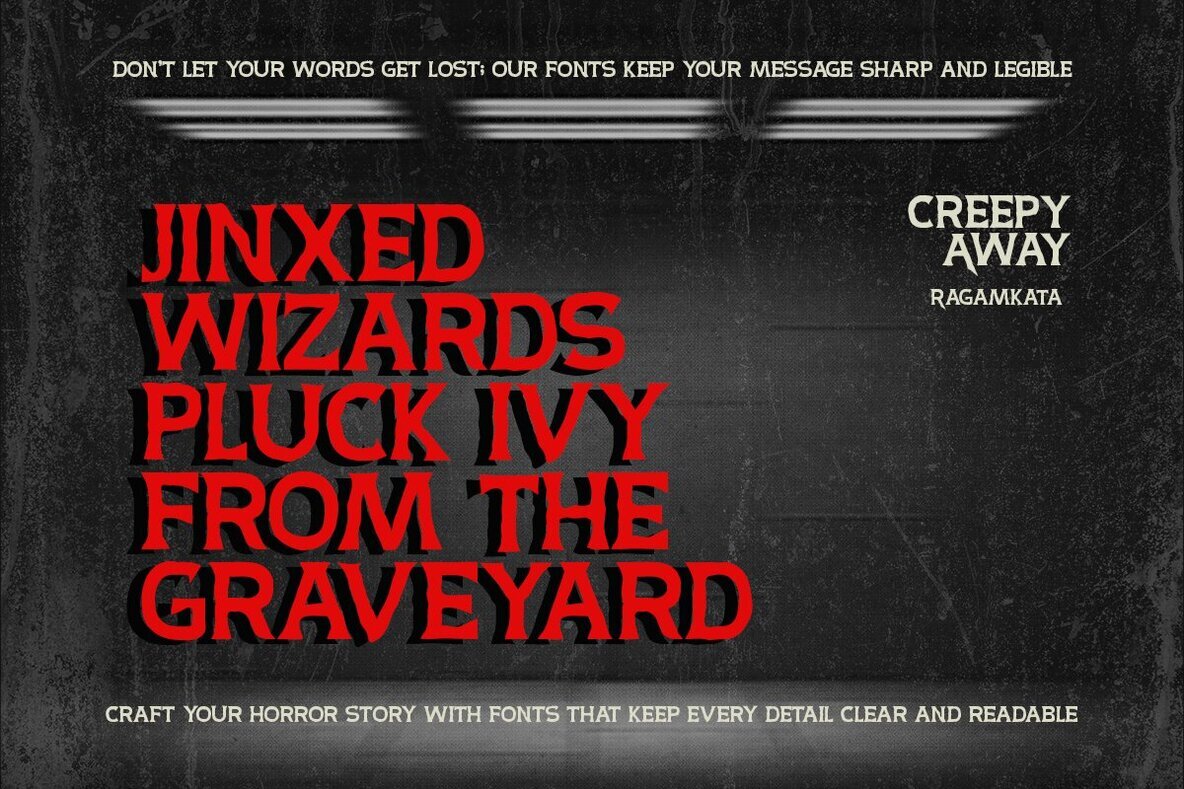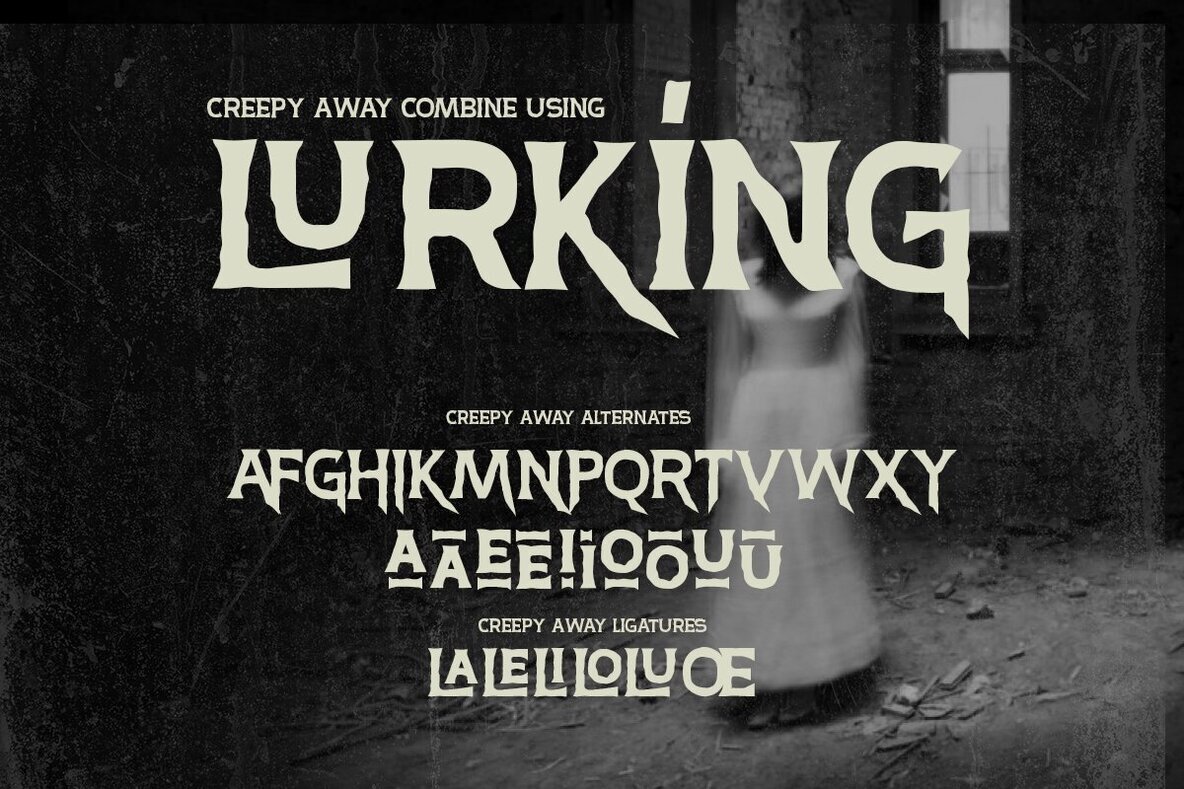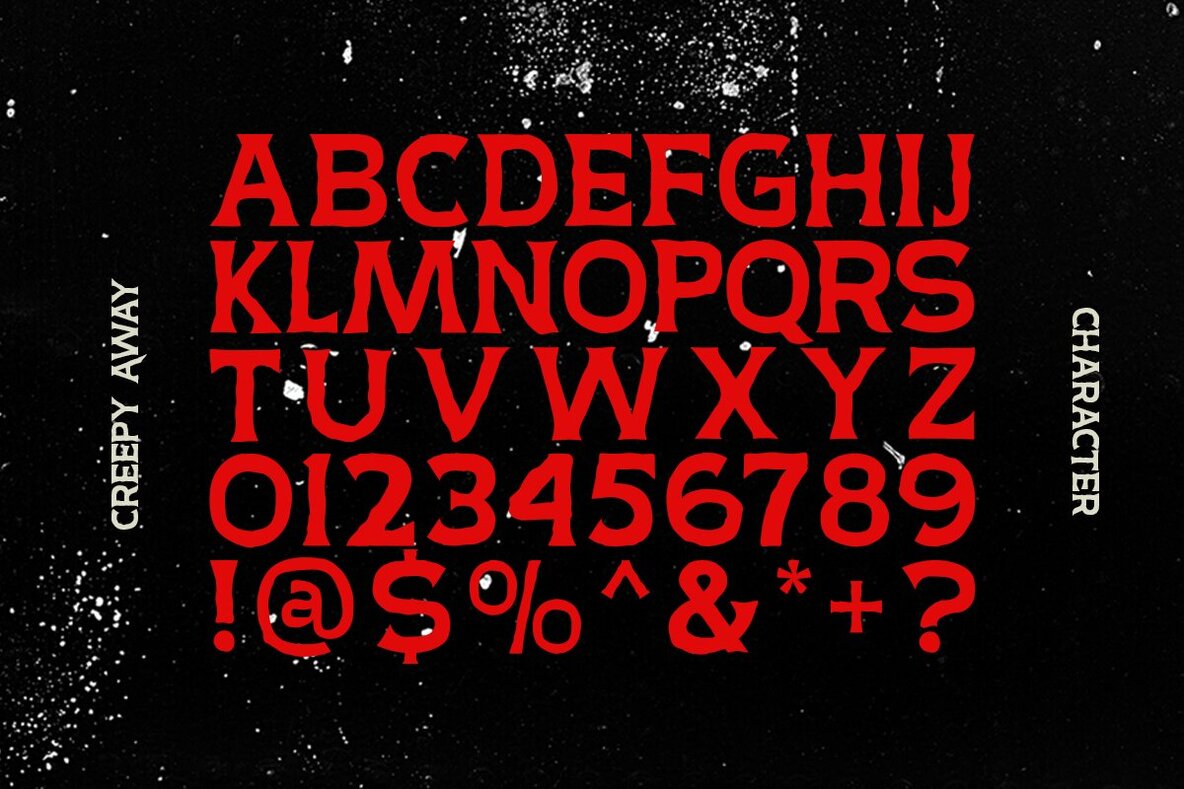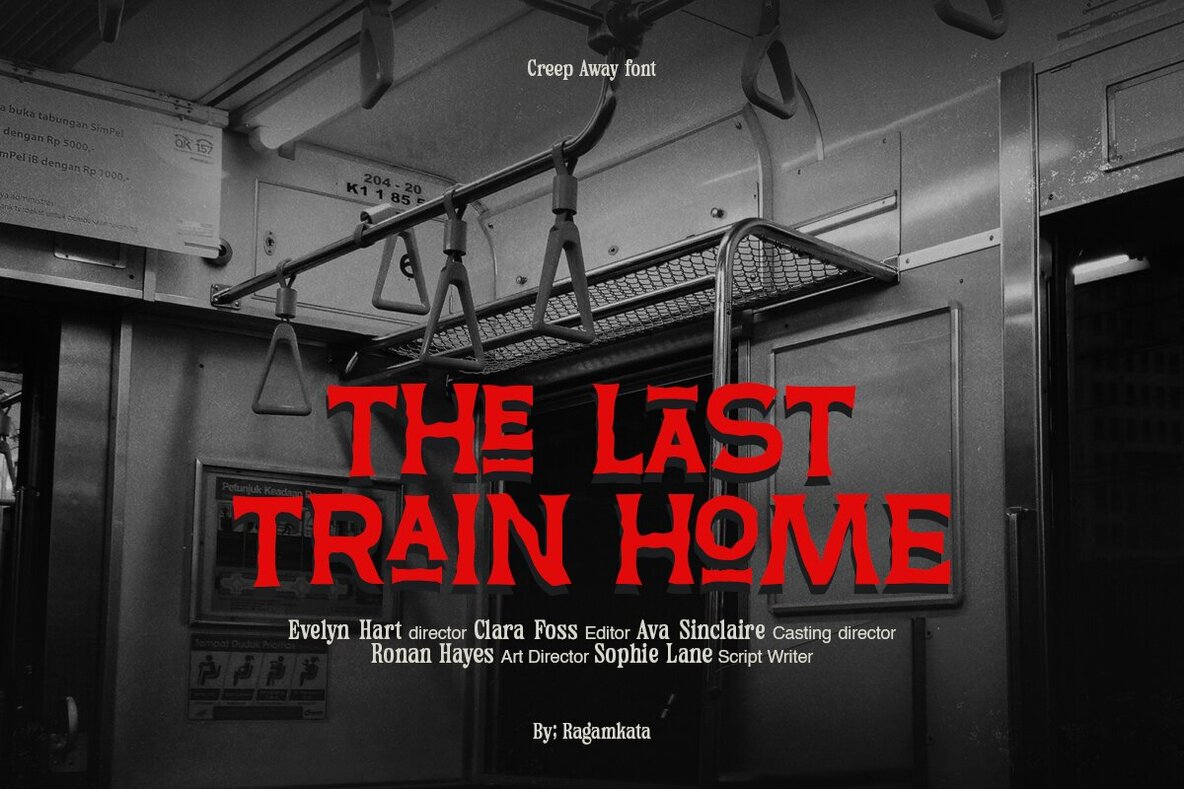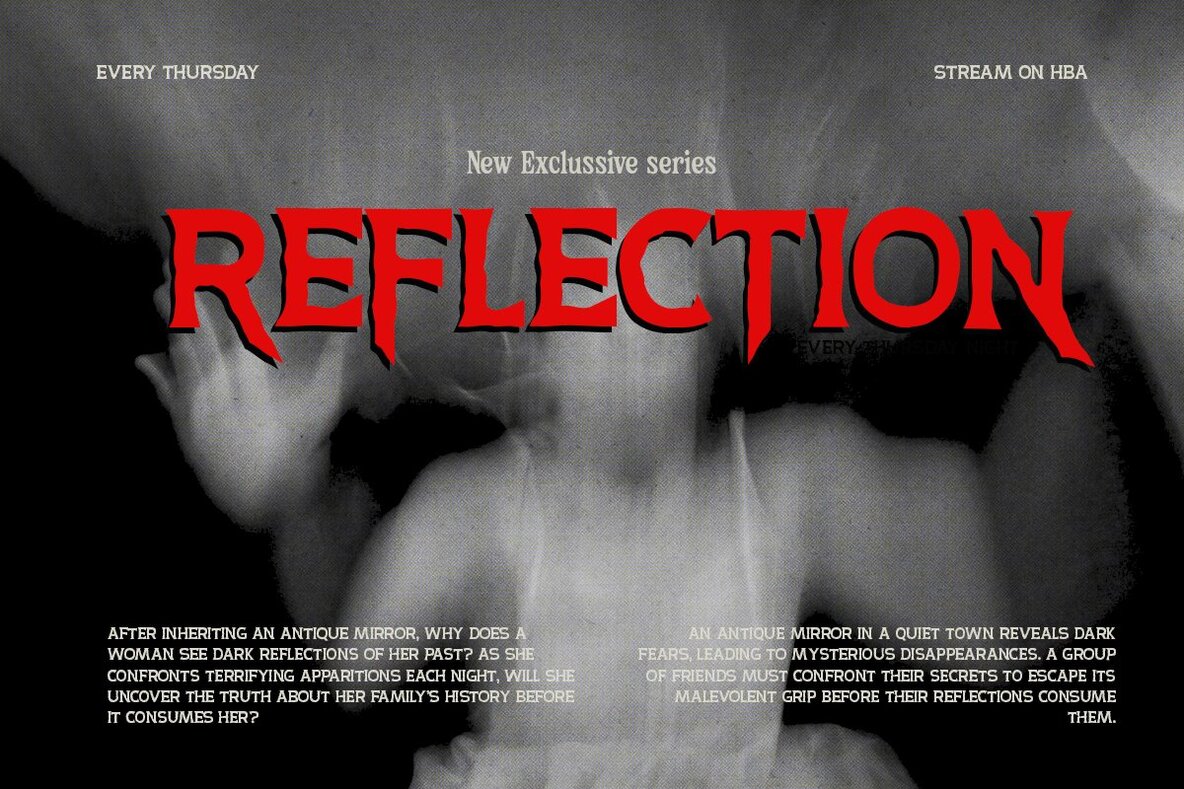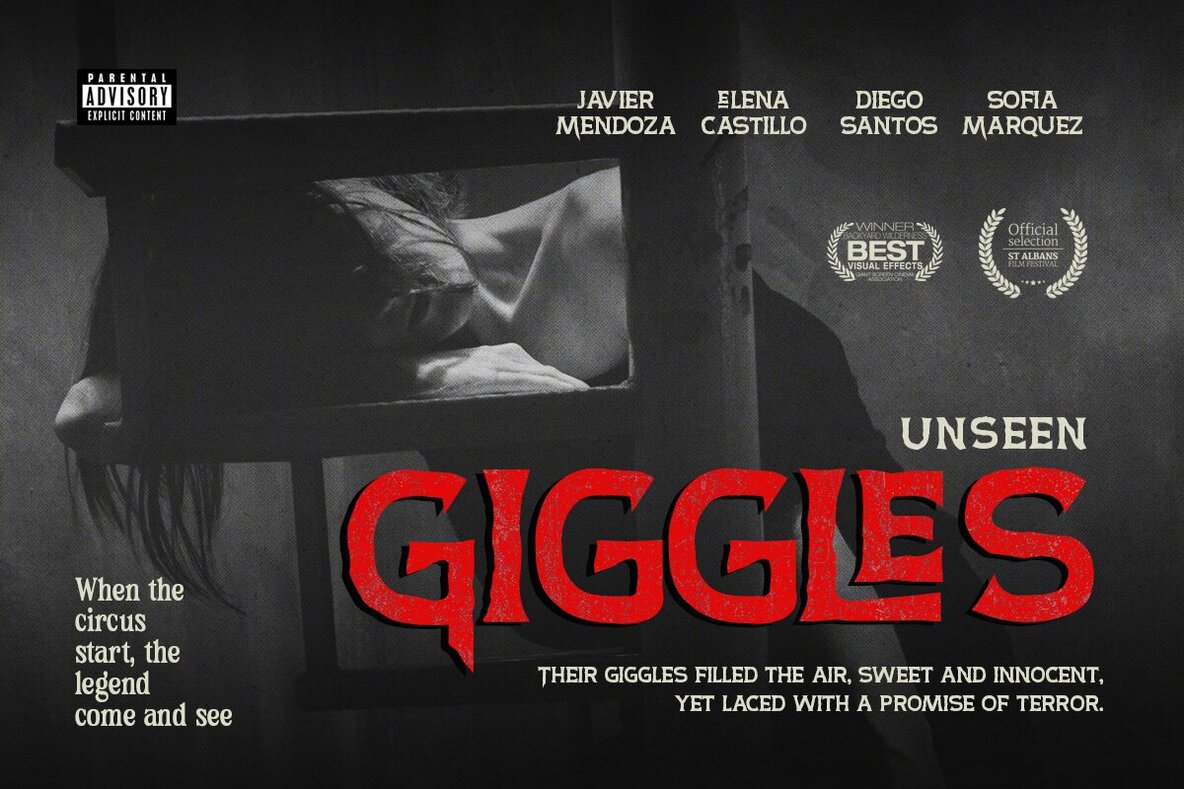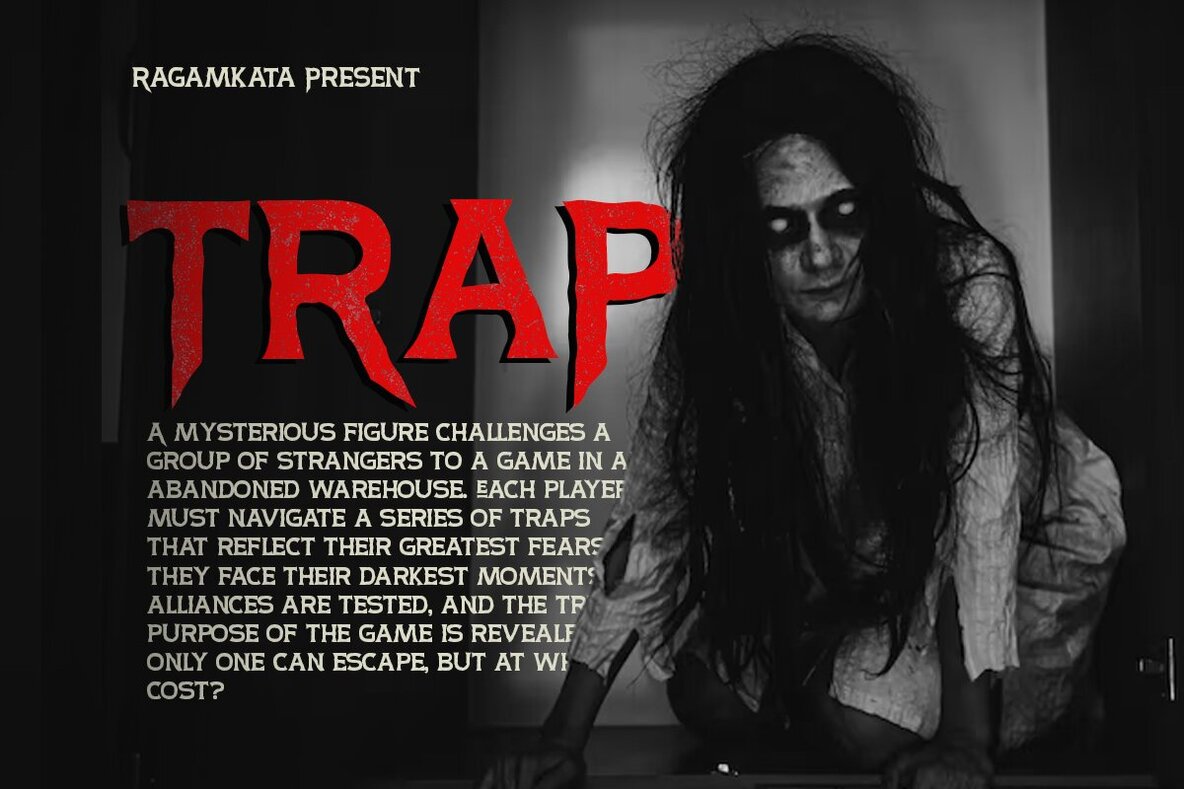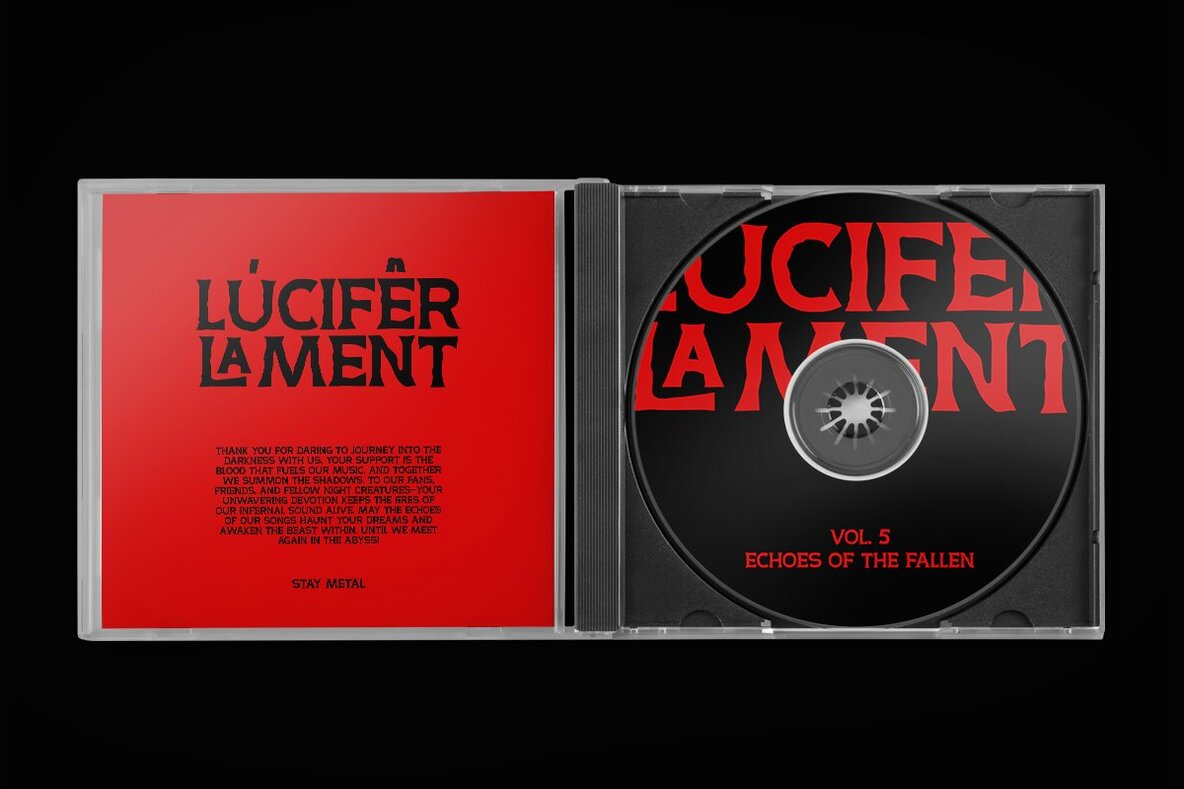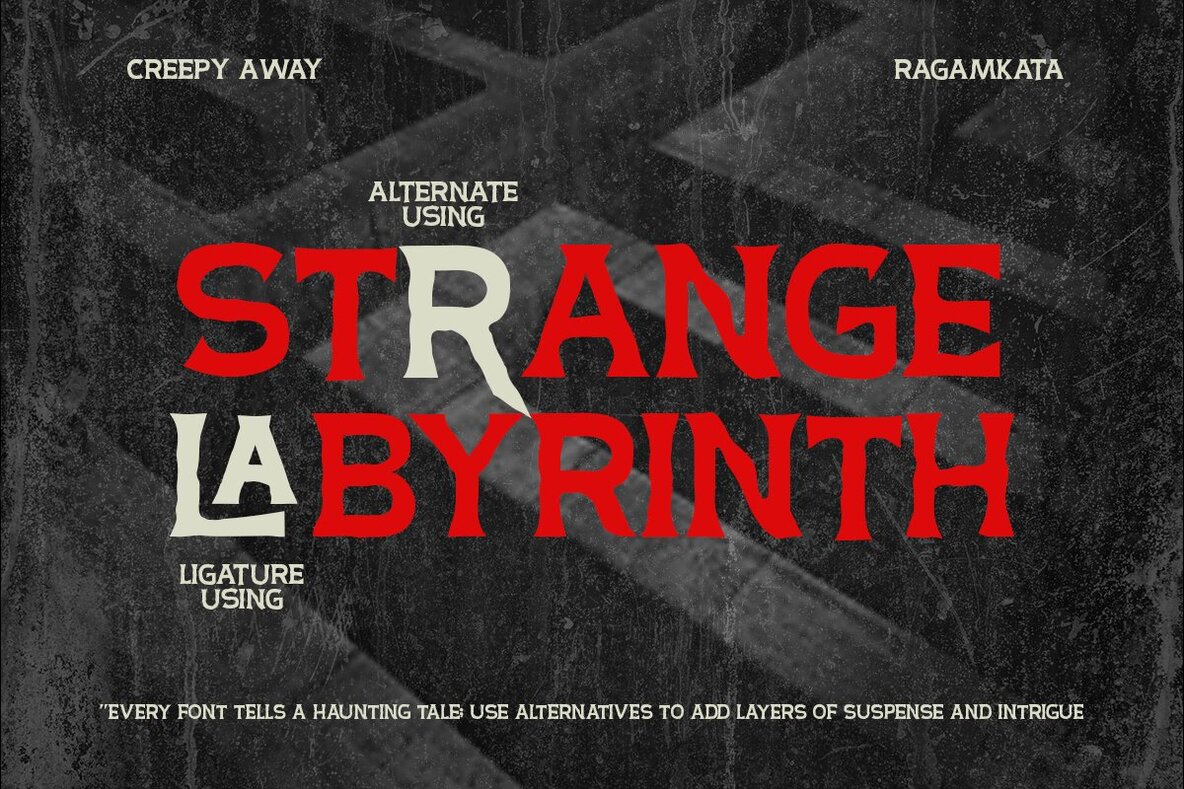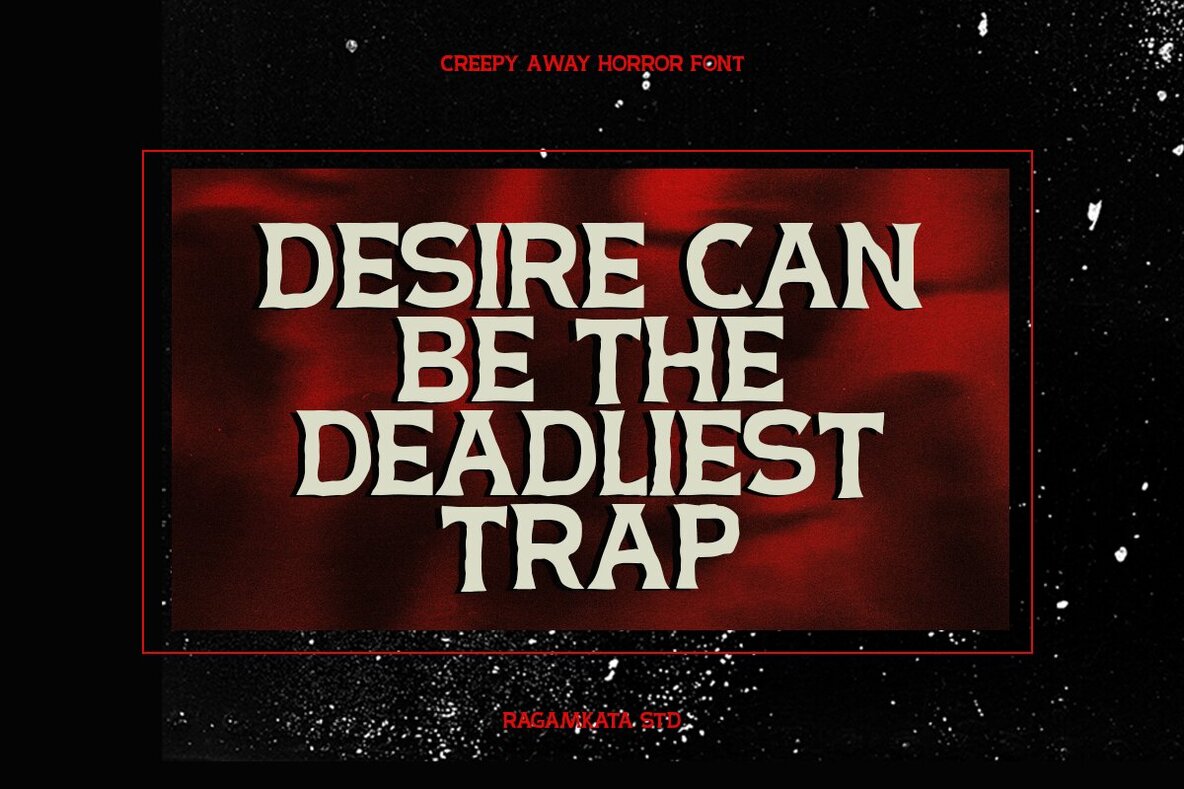
Creepy Away Font
Creepy Away Regular
Creepy Away is a vintage-inspired horror font that embodies a chilling and mysterious ambiance. Its sharp, textured design is perfect for adding a spooky touch to various eerie-themed projects. Ideal for crafting Halloween invitations, horror movie posters, or haunting social media graphics, Creepy Away infuses a retro yet terrifying charm into every design.
This font is perfect for:
- Horror movie posters
- Halloween party invites and decorations
- Book or comic covers in thriller genres
- Spooky merchandise designs
- Social media posts with a scary theme
Capture the essence of fear and intrigue with Creepy Away, leaving a memorable impact on your audience.